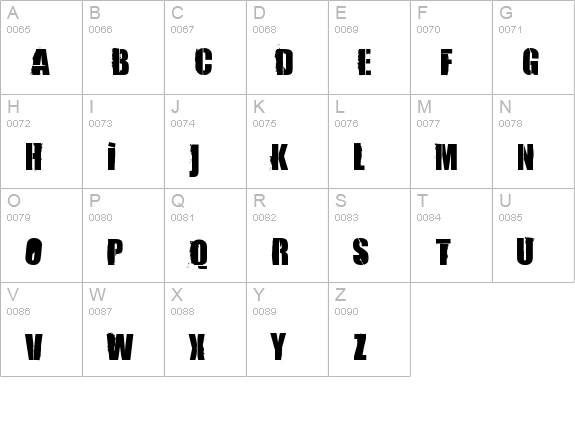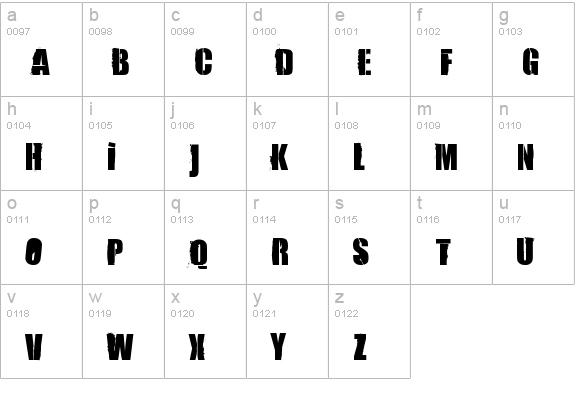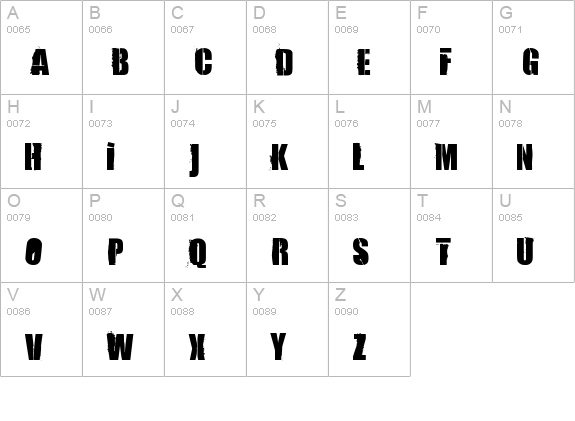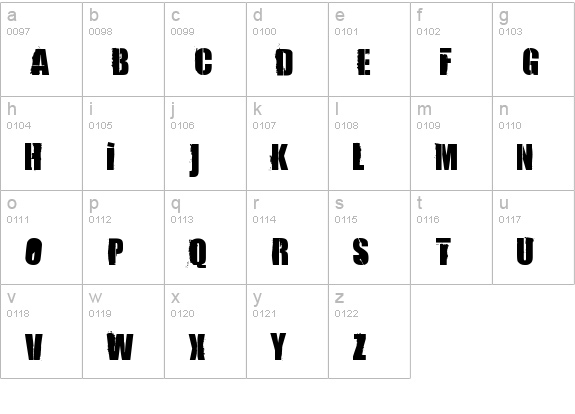
84 Rock! Font Details
Introducing 84 Rock!, a bold and dynamic font that rocks the world of typography with its edgy and modern style. This versatile typeface is perfect for making a statement in any design project, from posters to branding to album covers. With its sharp angles and strong lines, 84 Rock! exudes a sense of power and confidence that will instantly grab attention. Whether you're creating a rock concert flyer or a gritty urban logo, this font will add a touch of rebellious flair to your designs. And the best part? 84 Rock! is completely free to download at FontsMarket.com. So go ahead and unleash your creativity with this striking font that's sure to make a bold impression wherever it's used.